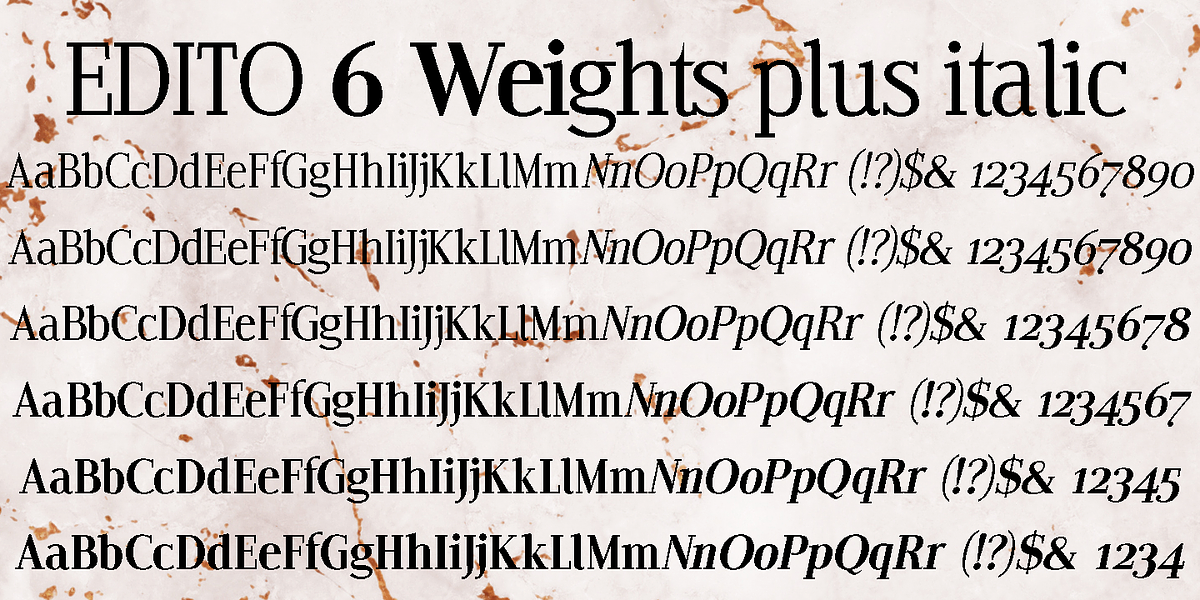
Edito
Edito is a new serif typeface designed by Gert Wiescher. It was created as an evolution of Times New Roman, aiming for a robust and usable font for everyday text applications. The defining characteristic of Edito is that all serifs have the same height regardless of the weight, ensuring visual consistency across different styles. Wiescher describes it as 'real solid and useful typeface for everyday use'.